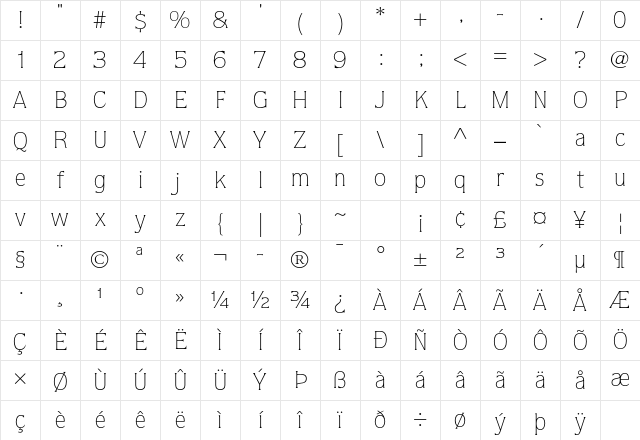
ITC Quorum Std Light
Designer: Ray Baker
Design Context for ITC Quorum Std
ITC Quorum Std is a composed and adaptable typeface that performs quietly and consistently across a wide range of design contexts. Its slender proportions lend an understated elegance to any composition.
Pro Tip: Use ITC Quorum Std in both headline and body roles to test its range before committing to a single application.